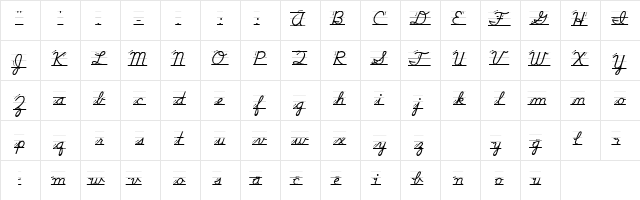
DNealianArrows Regular
Design Context for DNealianArrows Typeface
DNealianArrows takes a measured approach to typography — its balanced proportions and neutral character make it a reliable workhorse for both digital and print work. Its narrow stance lets it pack a punch even in space-constrained designs.